Scandia Stencil in use: Pasted
Pasted is a collage app, from James Mercer of The Shins and Zeke Howard and Ben Fogarty of The Brigade, a design studio in Portland. It’s an inventive tool that lets you mask photos, add filters, and layer graphics to make artwork. After creating their logo with Scandia Stencil, they expanded the concept into a full alphabet pack, so you can paste the two-tone letters into your collage and they’ll react to the filters. It’s always fun to see our fonts used in creative ways — if you’re ever interested in licensing for a mobile app, just get in touch.
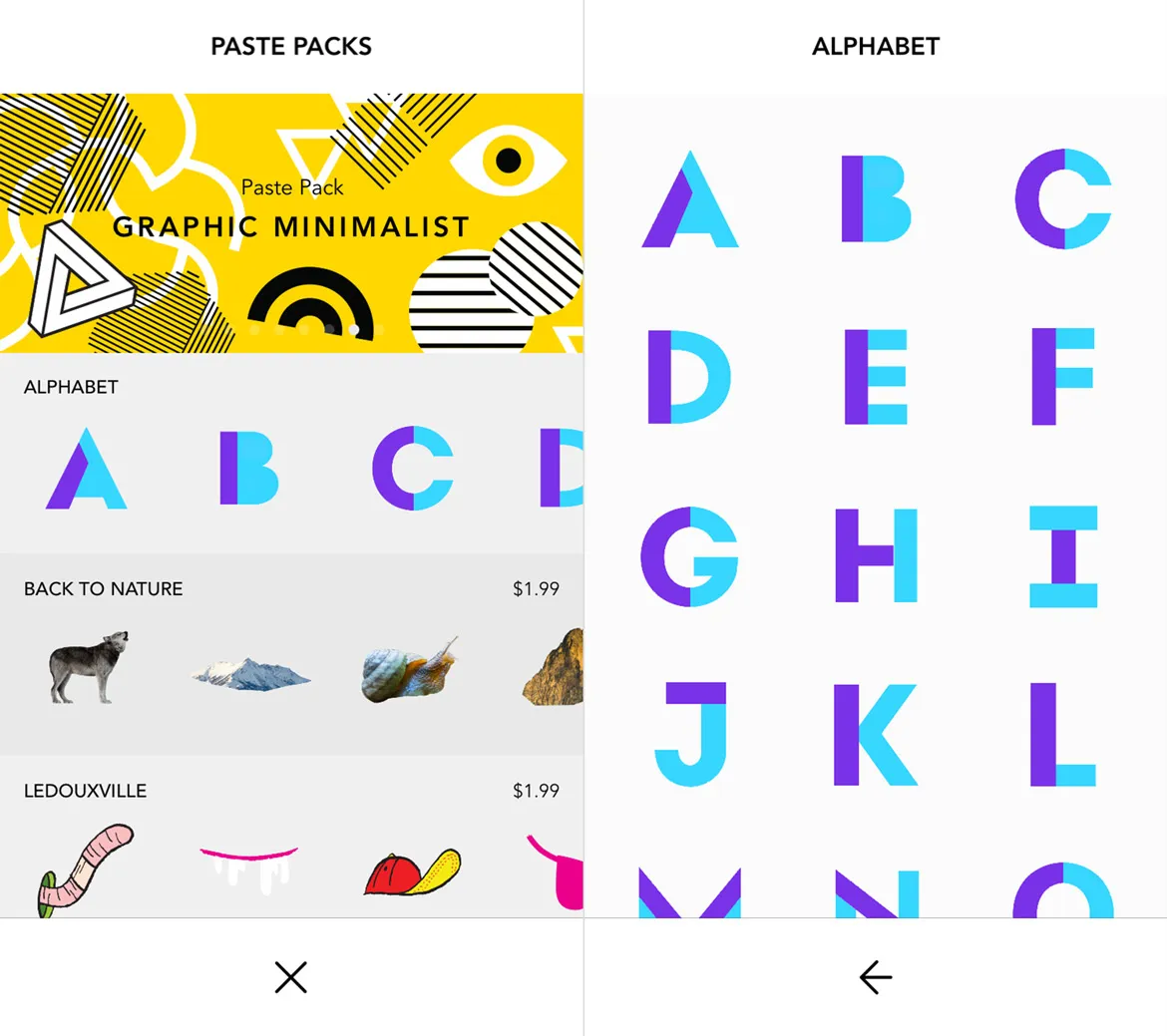
“Stencil fonts feel like they have a unique place in collage art. As a result, Scandia really felt right. It’s almost like some of the geometric stickers were used to assemble the logo.”—Ben Fogarty